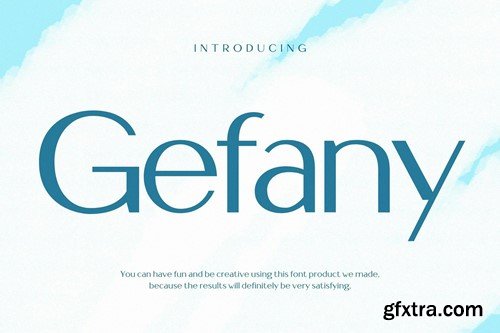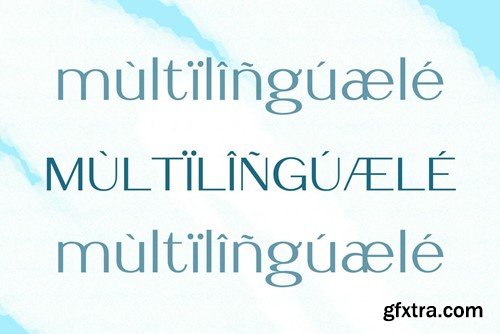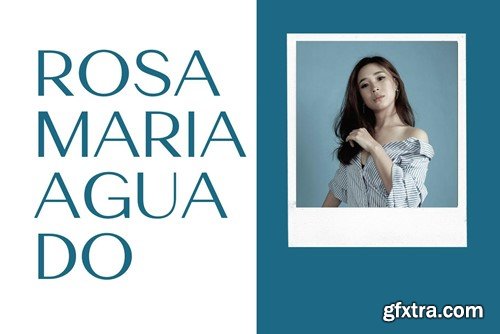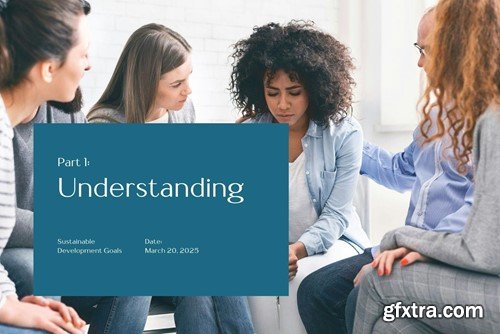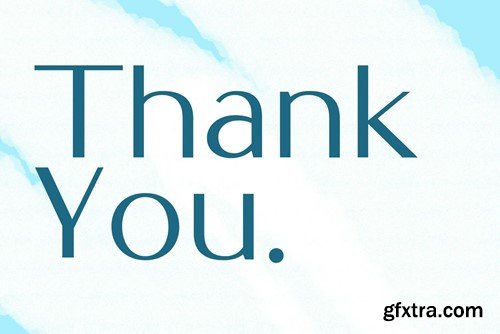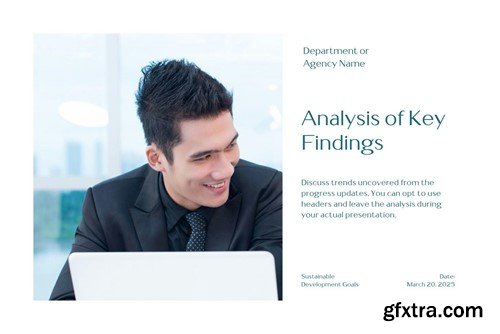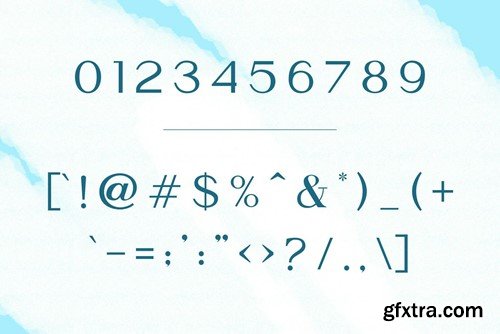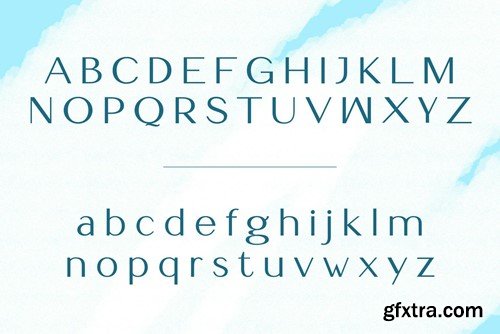
几何现代美学无衬线字体 UBZ4329
Gefany Modern Aeshtetic Sans Font
A beautiful series of letters is encapsulated in this 'Gefany' font. Neat lettering is perfect for writing needs that are modern and pleasing to the eye, there is a Modern impression but still looks Elegant when used for writing. Tidiness in the manufacture of each letter, is our top priority. You can have fun and be creative using this font product we made, because the results will definitely be very satisfying. What do you get: -OTF -TTF -WOFF This font is ready to be used to support your next design needs. Thank You!